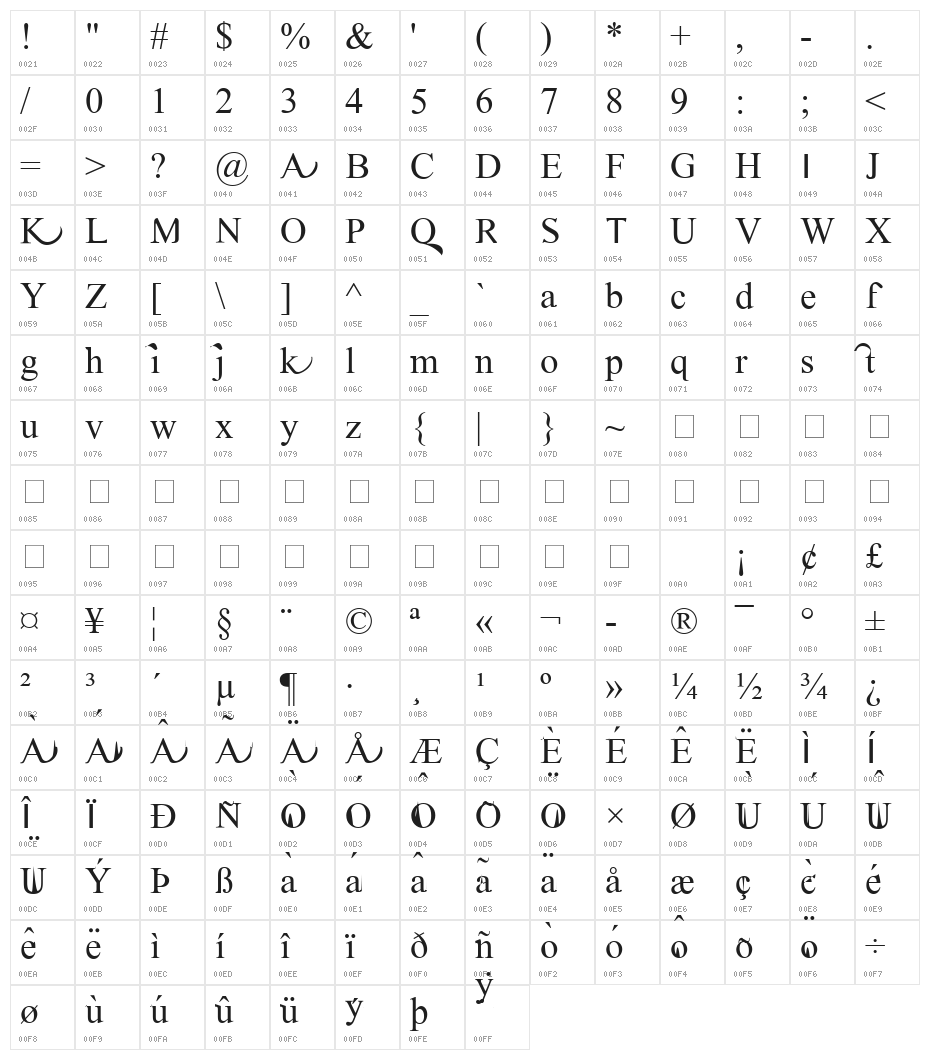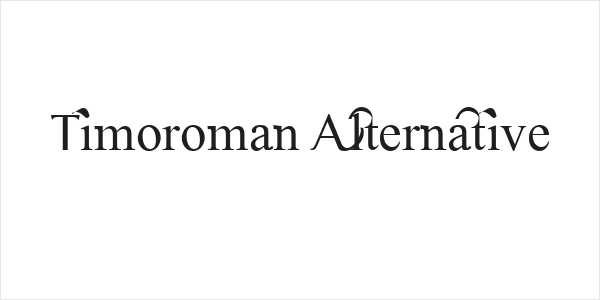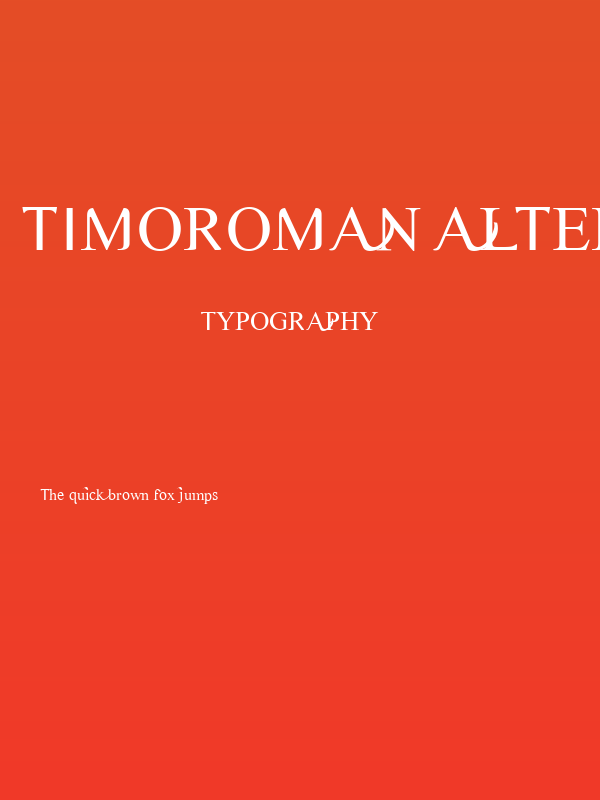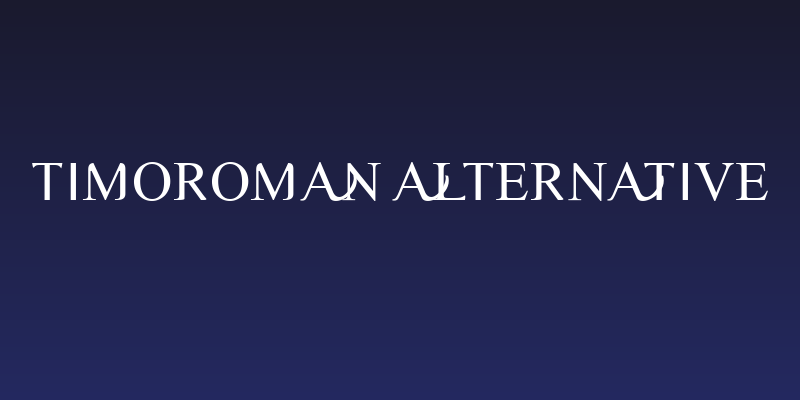
Timoroman Alternative Font
Timoroman Alternative Description
This font exhibits a classic serif style with a modern twist. The characters are elegantly crafted with distinct serifs that add a touch of sophistication. The uppercase letters are bold and commanding, while the lowercase letters maintain a graceful flow. The numerals are clear and traditional, ensuring readability. Special characters are well-integrated, maintaining the overall aesthetic. The font's design is versatile, suitable for both formal and creative applications, making it a great choice for projects that require a blend of tradition and modernity.
TIMOROMAN-ALTERNATIVE UPPERCASE
TIMOROMAN-ALTERNATIVE LOWERCASE
TIMOROMAN-ALTERNATIVE OTHER CHARS